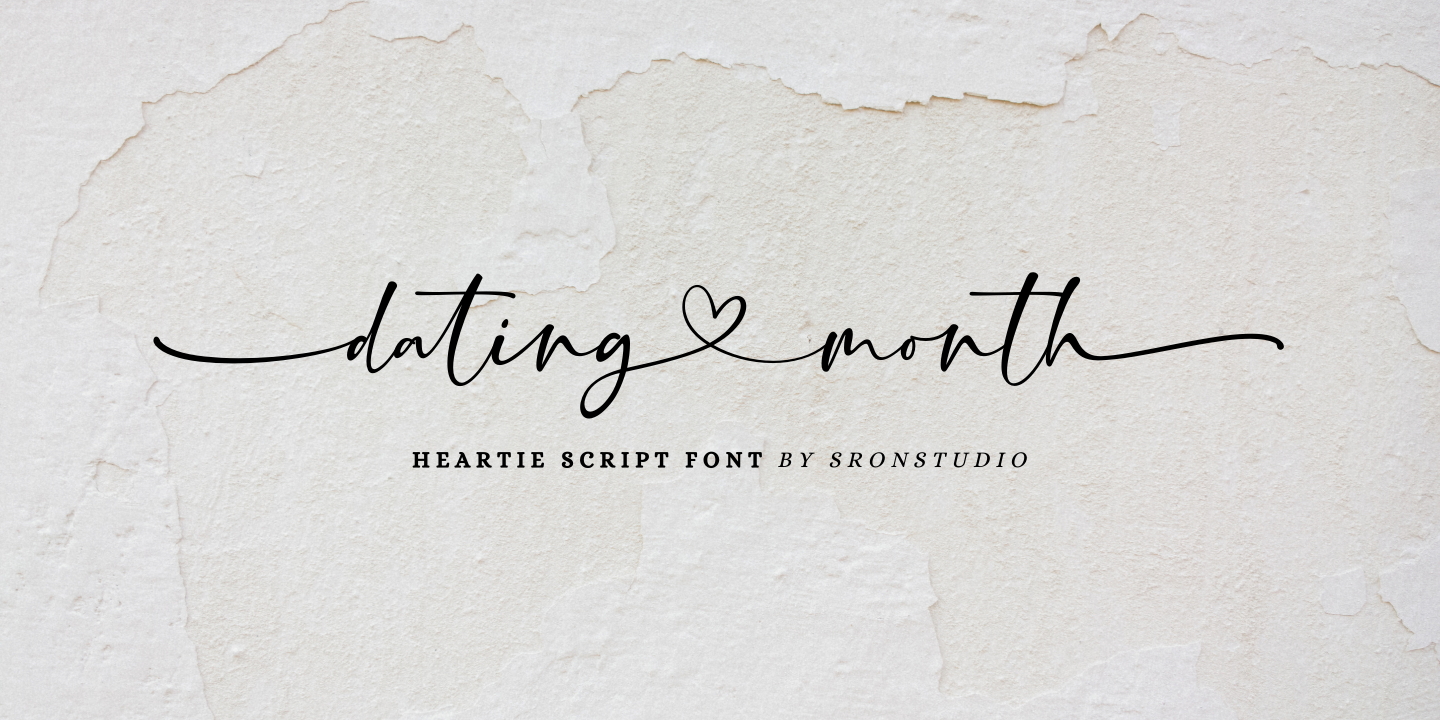
Dating Month Font demonstrates exceptional versatility across numerous design applications including wedding invitations, romantic greeting cards, dating app interfaces, Valentine's Day marketing, anniversary celebrations, love letter stationery, couples photography branding, and romantic restaurant menus. Its charming character makes it particularly effective for projects requiring emotional connection while maintaining sophisticated appeal, ensuring your designs convey romance and intimacy across both digital platforms and premium print materials.
What makes Dating Month Font truly exciting is its masterful balance of romantic sentiment and modern design sensibilities that creates compelling love-centered communications. The font features carefully crafted letterforms that incorporate subtle heart-inspired curves and gentle flowing elements that enhance emotional resonance while maintaining excellent readability. Its distinctive character construction combines romantic elegance with contemporary functionality, creating text that feels both intimate and professionally polished. The font's optimized spacing and harmonious character relationships ensure superior performance across various romantic applications while preserving the characteristic warmth that defines its loving personality.
Dating Month Font offers a comprehensive type family designed to support diverse romantic design requirements. The family typically includes light, regular, medium, and bold weights, along with corresponding italic variations that provide complete flexibility for heartfelt typography compositions. Many versions feature extended character sets with romantic symbols, heart ornaments, and love-themed decorative elements that enhance authentic romantic aesthetic applications.
The Dating Month Font Free Download represents outstanding value for designers working on love-focused and relationship-themed projects across multiple sectors. Whether developing wedding brand identity, creating romantic product packaging, designing dating service materials, or producing anniversary celebration communications, this font delivers consistent charm and memorable emotional impact. Its romantic characteristics make it particularly effective for industries including wedding services, jewelry, romantic hospitality, and lifestyle brands seeking to communicate love and emotional connection.
For maximum effectiveness, Dating Month Font combines beautifully with soft color palettes and romantic design elements that reinforce its heartfelt message. Its charming presence excels in headline applications while maintaining excellent performance in intimate correspondence contexts. The font's romantic sophistication and emotional appeal make it an essential tool for creating love-centered communications that resonate with audiences celebrating relationships and romantic moments.